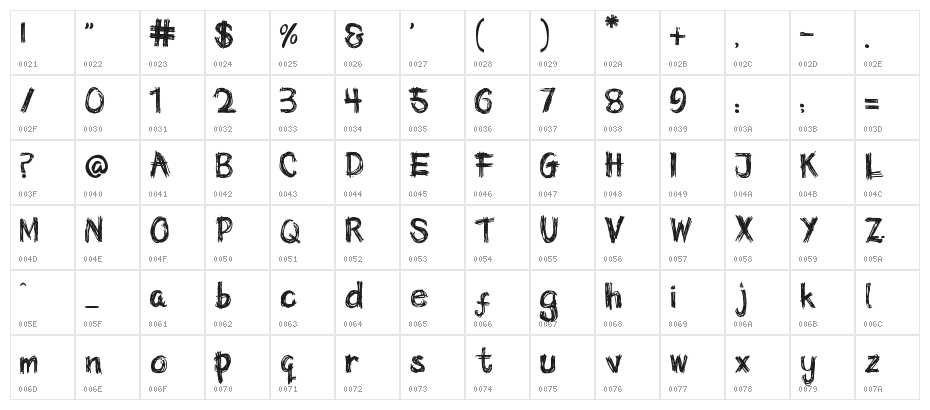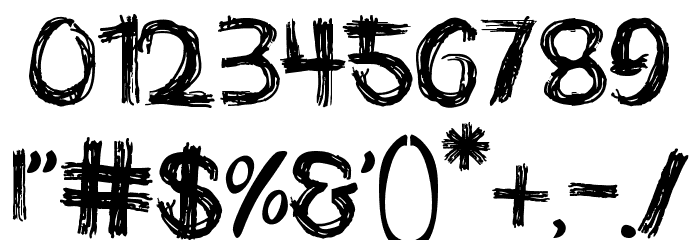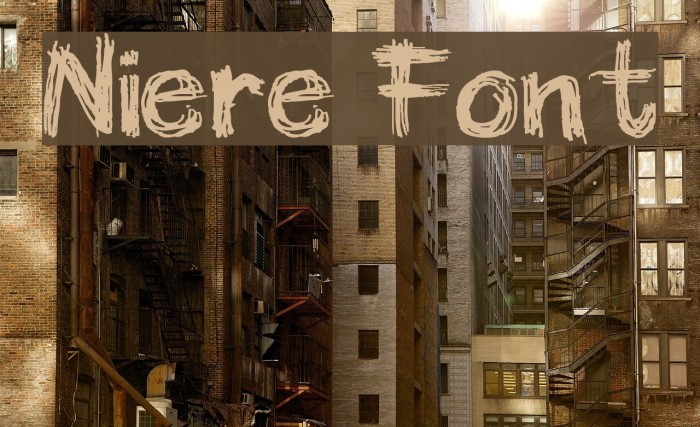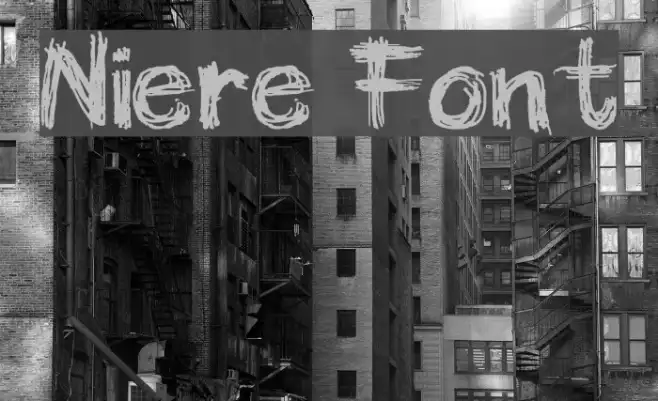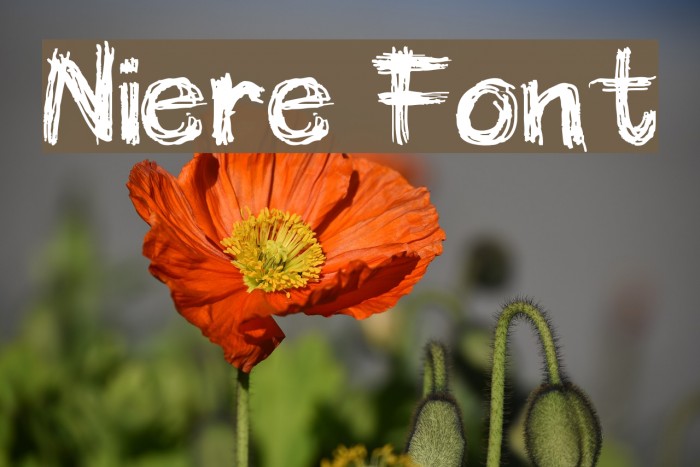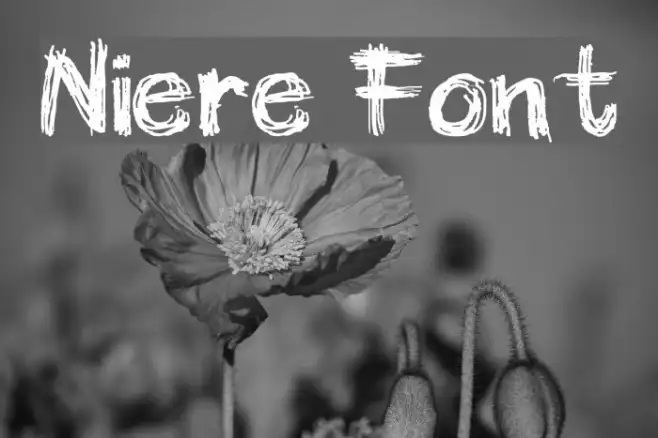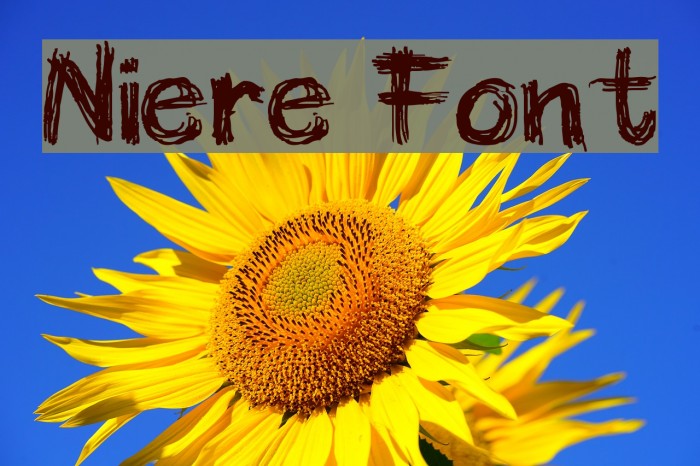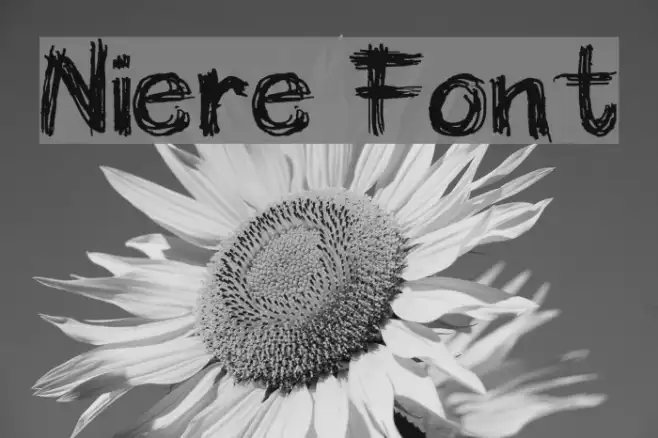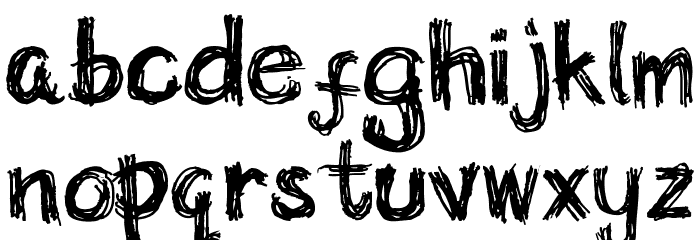
Niere Font
Niere Description
This font exhibits a bold and expressive style, characterized by its rough, hand-drawn appearance. Each letter is crafted with a textured, brush-like effect that gives it a dynamic and energetic feel. The strokes are uneven and vary in thickness, creating a sense of movement and spontaneity. The uppercase and lowercase letters maintain a consistent style, with exaggerated curves and angles that enhance its playful and artistic nature. Numbers and special characters follow the same design principles, ensuring a cohesive look across all elements. This font is ideal for projects that require a bold statement or a creative, informal touch.